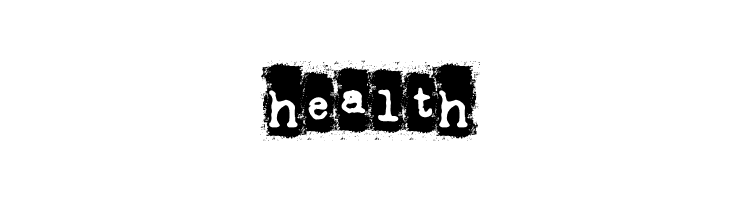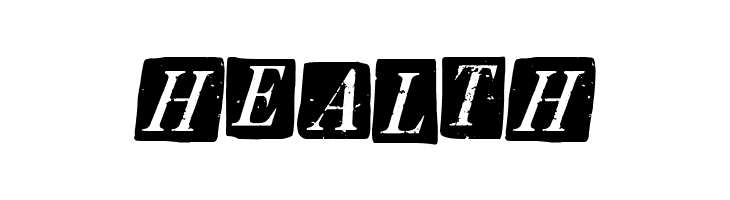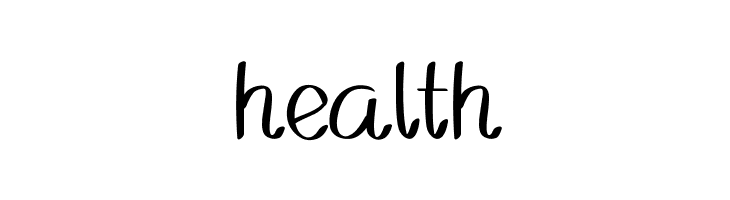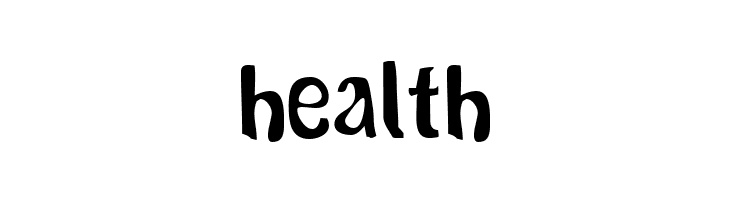
A lively and dynamic script font with fluid, connected letterforms.
A bold, distressed font with a grunge, stamp-like appearance.
A bold, distressed font with a vintage, stamped appearance.
A playful, handwritten font with a whimsical and friendly style.
A dynamic, brushstroke-style font with an artistic and textured appearance.
A dynamic script font with elegant curves and calligraphic style.
A bold, rounded font with a playful and professional style.
A bold, dynamic font with medieval influences and artistic flair.
A playful, bold font with a hand-drawn, whimsical style.